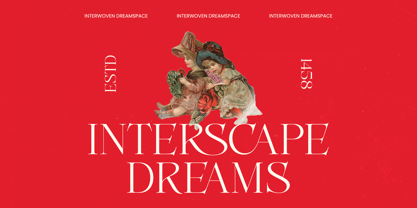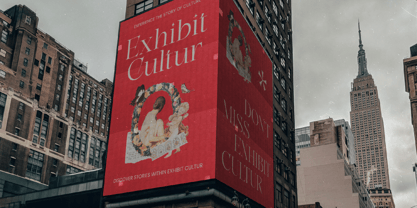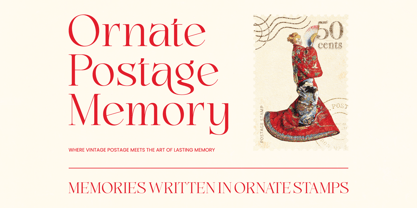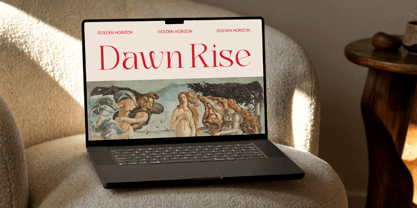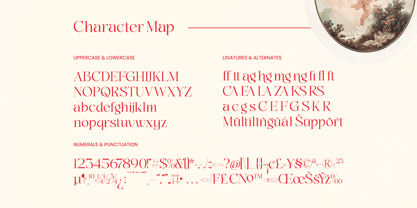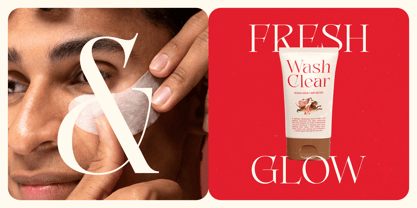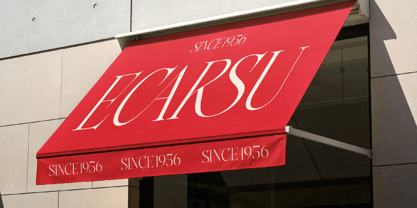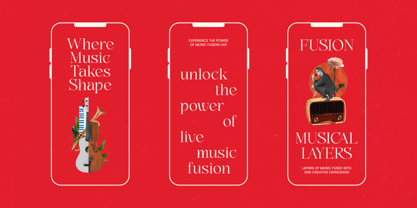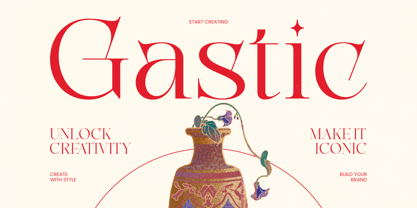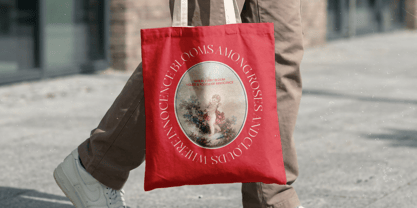
Gastic
La famille de polices Gastic a été conçue par Heru Utama Putra et publiée par Timelesstype Studio. Gastic contient 2 styles et options de package familial. En savoir plus sur cette famille
Elevate your creative vision with a typeface that embodies pure sophistication and timeless appeal. Gastic - Modern Editorial Serif is a high-contrast display font that expertly merges classic elegance with a contemporary edge, making it a standout choice for discerning designers. Its refined silhouettes and sharp, deliberate terminals provide a luxurious aesthetic that commands attention while maintaining a sense of effortless grace.